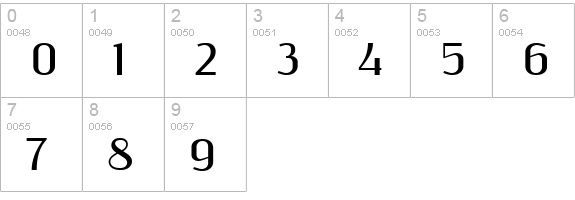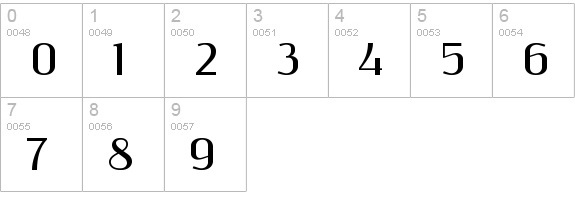
ResagnictoBold Font Details
ResagnictoBold font is a captivating and bold typeface that exudes confidence and strength. With its clean lines and strong geometric shapes, this font is perfect for making a bold statement in any design project. The unique and eye-catching letterforms of ResagnictoBold add a touch of sophistication and modernity to any text. Its bold strokes and powerful curves make it stand out from the crowd, commanding attention and leaving a lasting impression. What sets ResagnictoBold font apart is not only its stunning aesthetics, but also its accessibility. This font is available for free download at FontsMarket.com, allowing designers and creatives alike to easily incorporate it into their projects without any hassle. Whether you're designing a logo, creating a poster, or crafting a headline, ResagnictoBold font will elevate your work to new heights. Its versatility and timeless appeal make it suitable for a wide range of applications, from print to digital. With ResagnictoBold font, you have the freedom to express your creativity and make a lasting impact. So why wait? Download this exceptional font for free at FontsMarket.com and let your designs speak volumes with its bold and captivating presence.